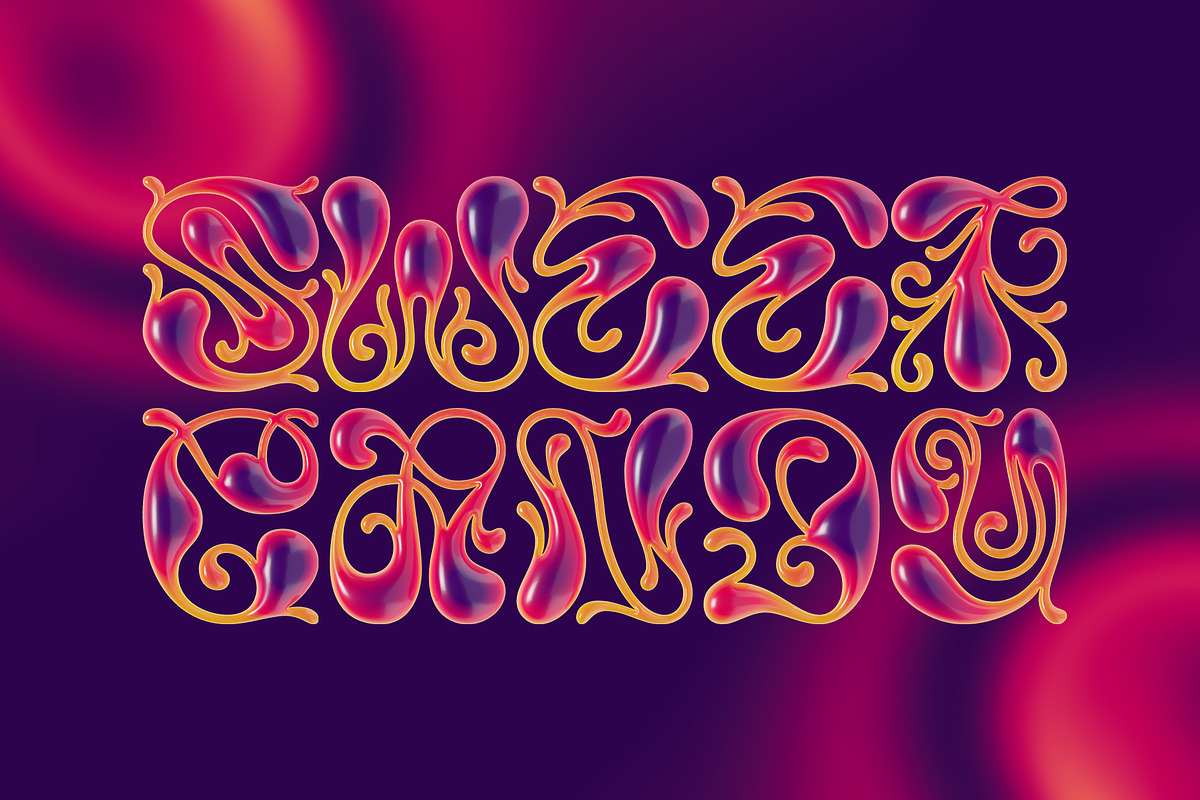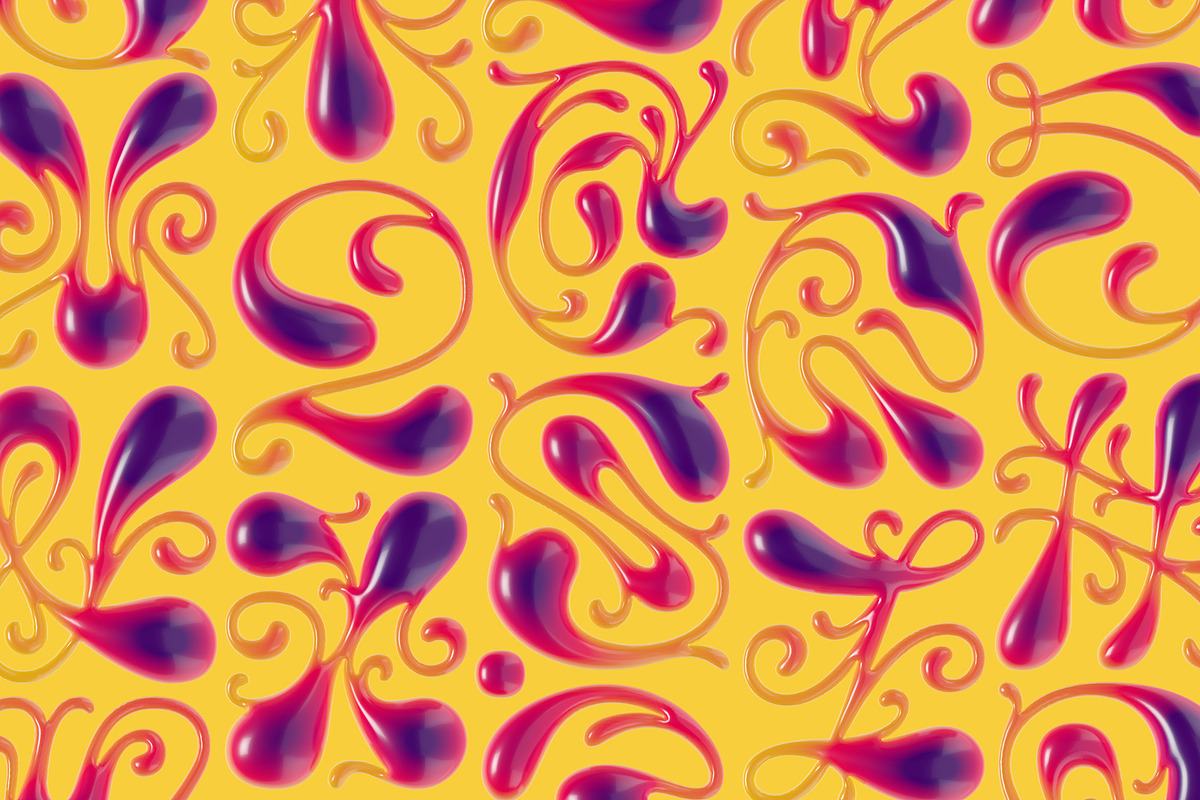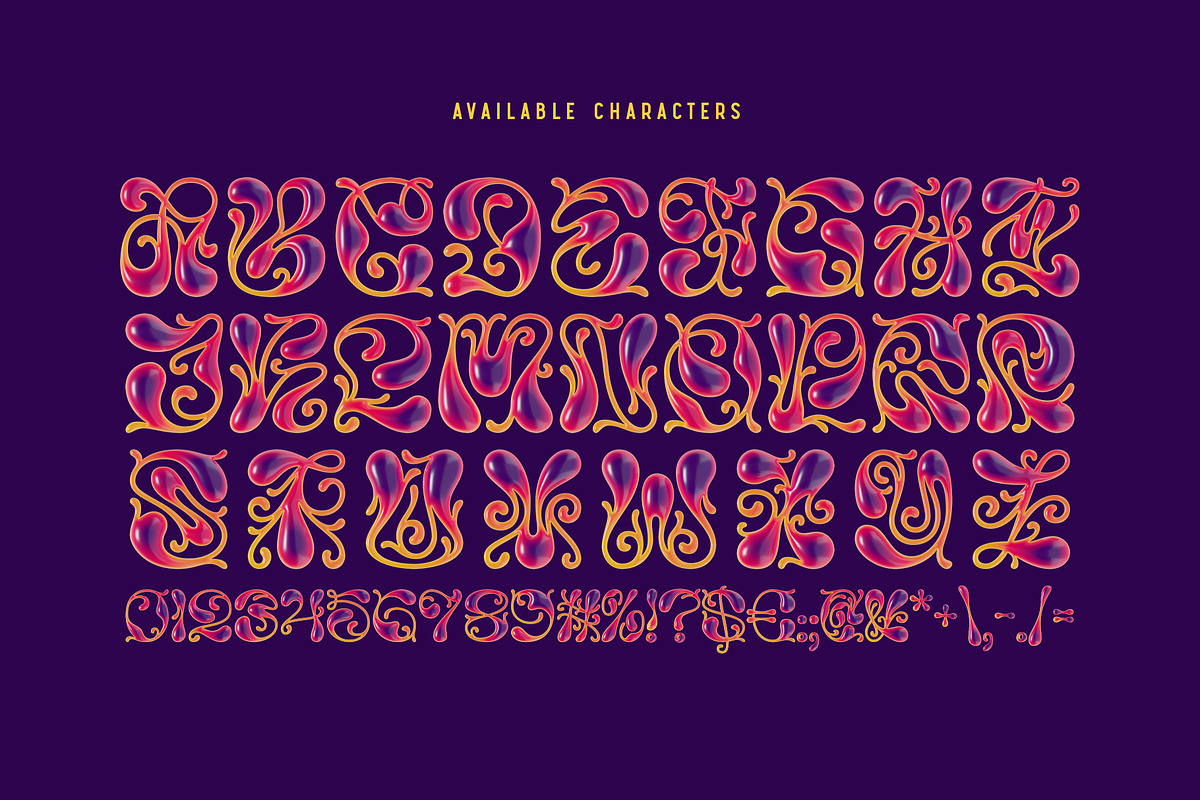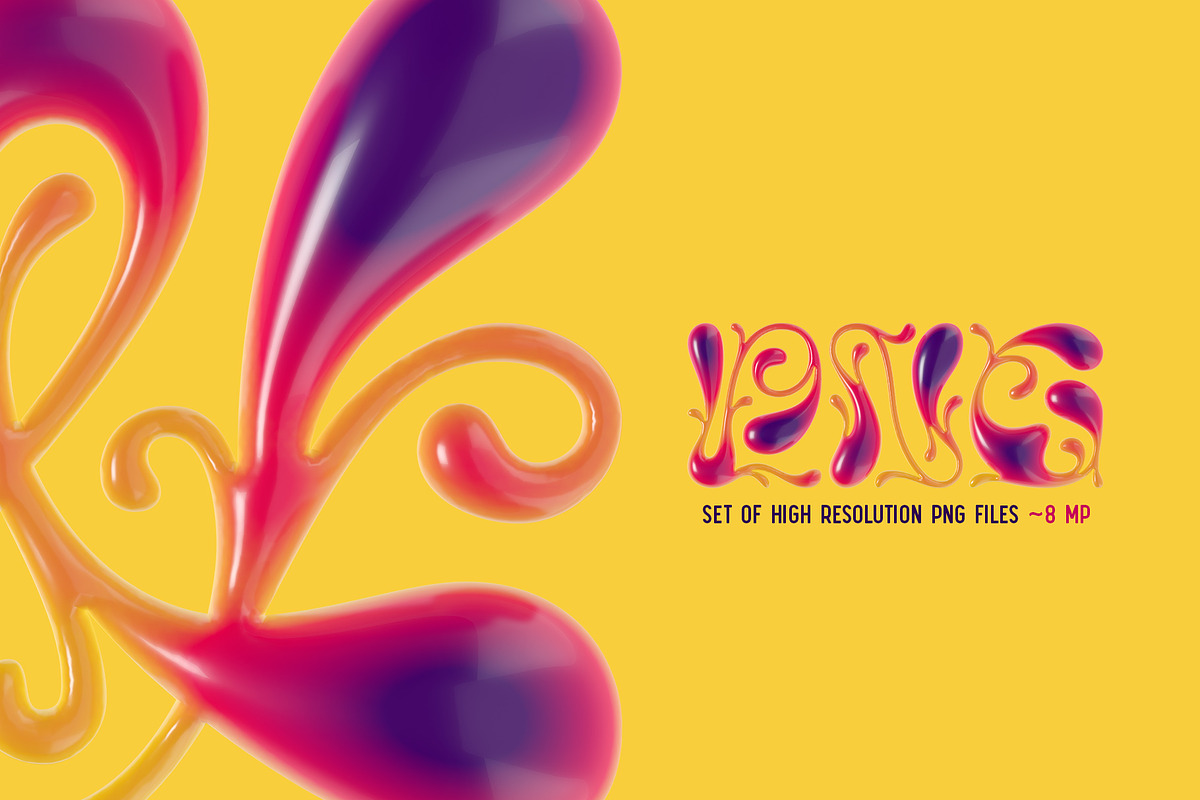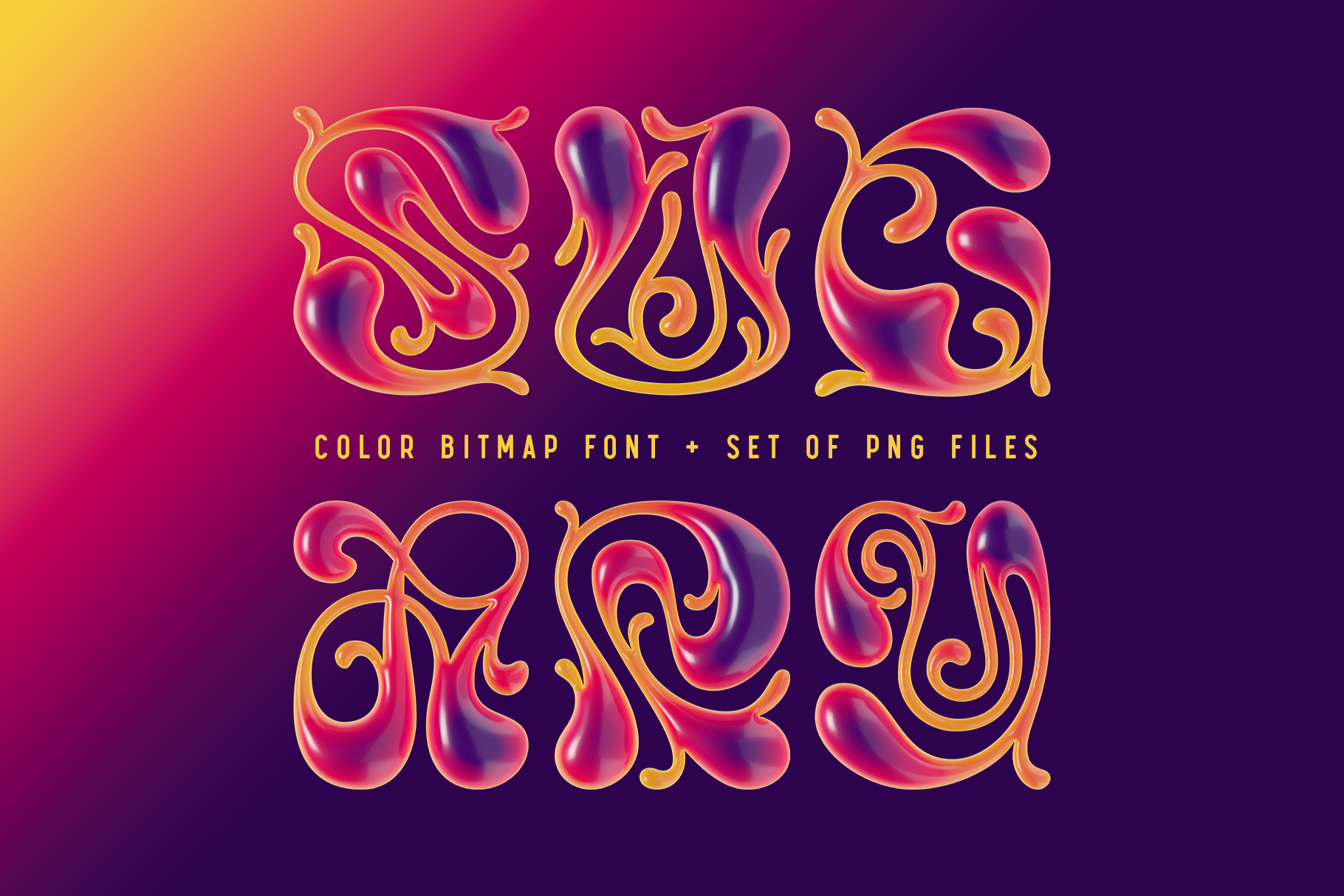
Sugary - Bitmap Color Font
Hello! Presenting a sweet font set - Sugary. It's a 3d rendered typeface with smooth curly shape and colorful glossy effect. First of all, it's a color bitmap OpenType-SVG font that can be used as a usual OTF font. Also, a set of full-resolution PNG files with transparent background is included. Please consider that only the English language and basic punctuation are available, please check out the screenshot with all existing characters.